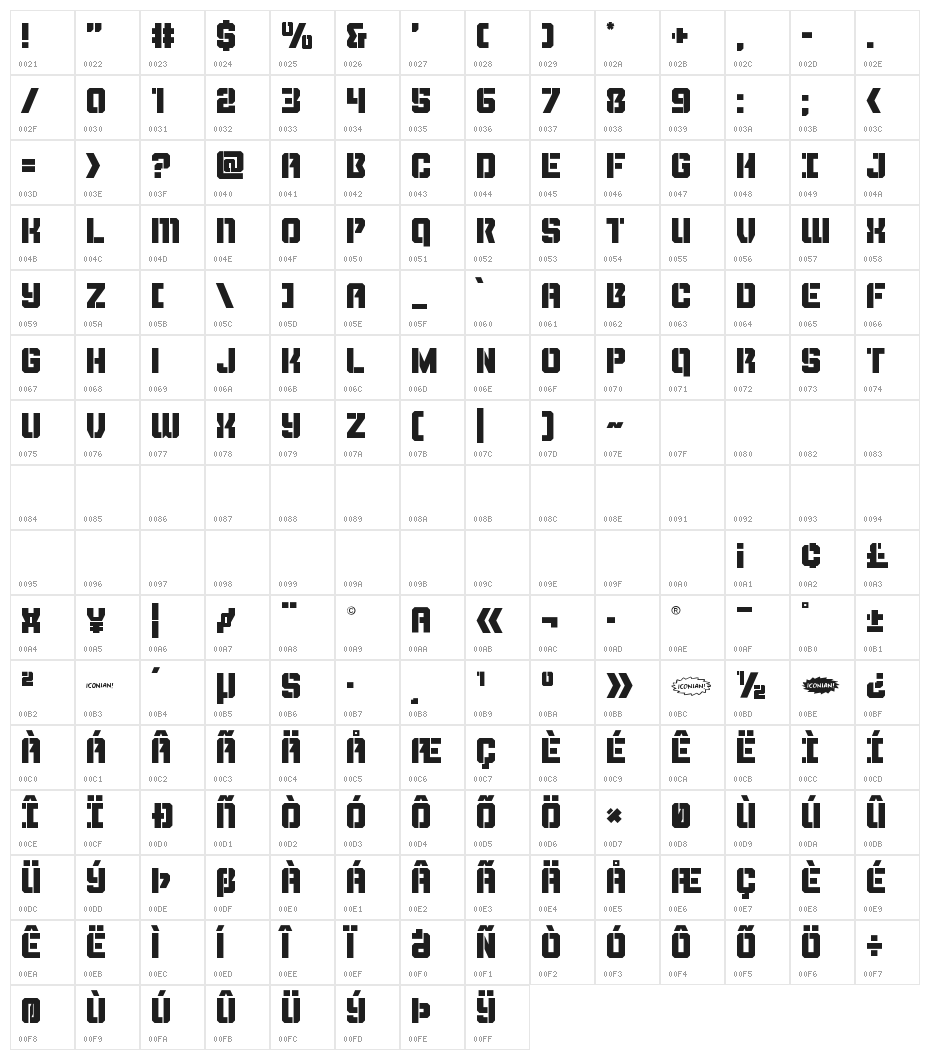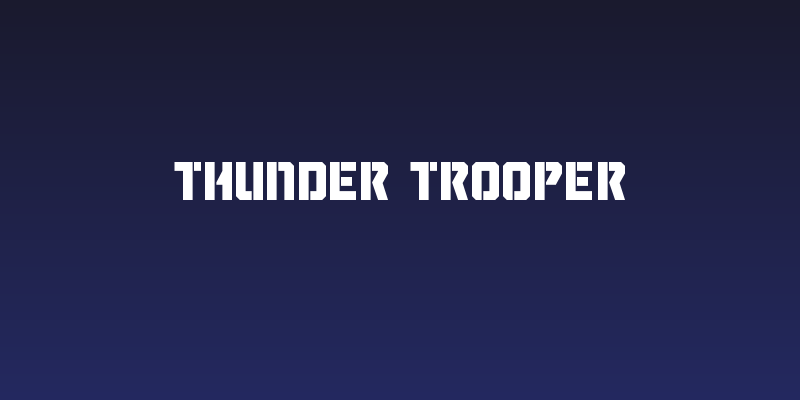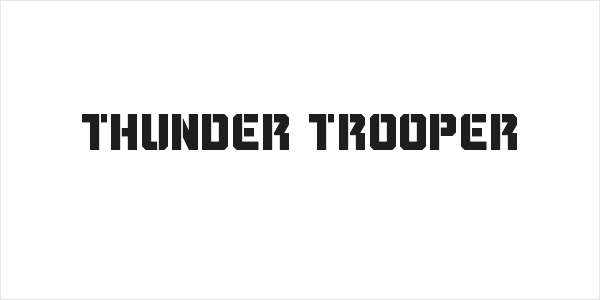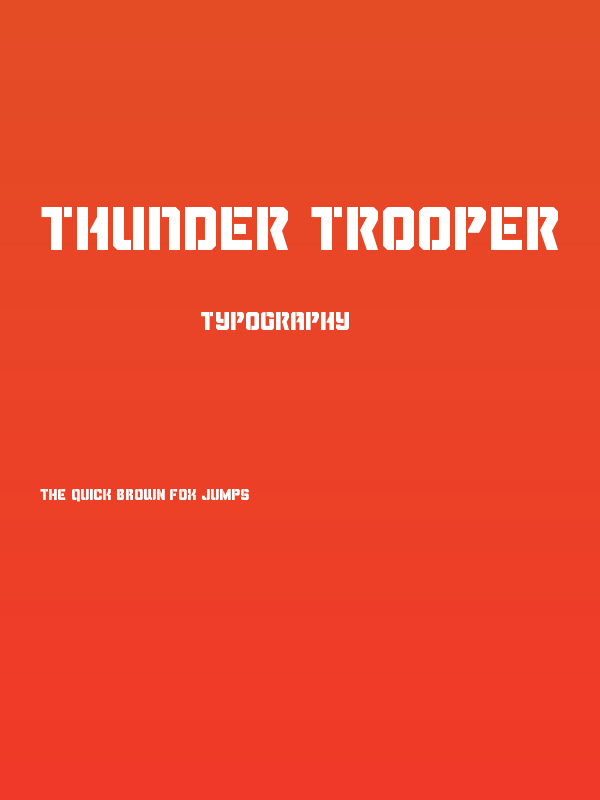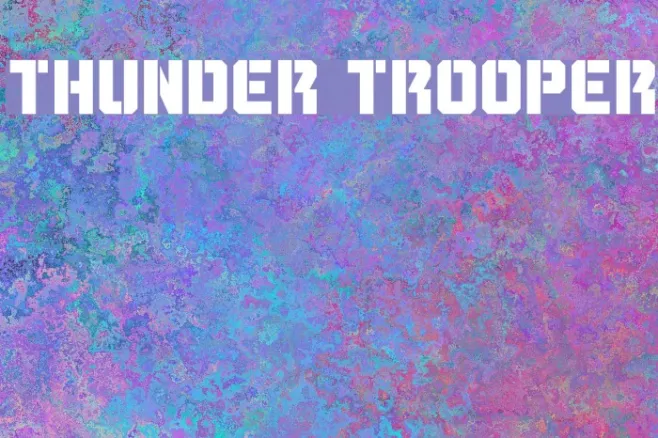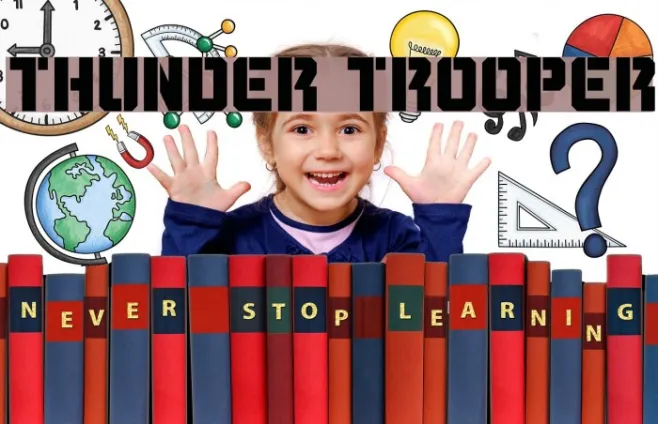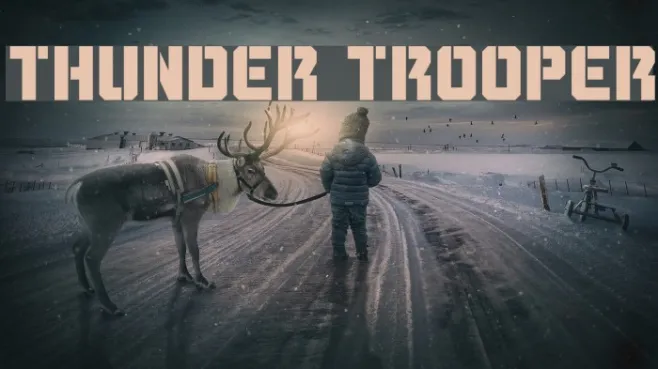
Thunder Trooper Font
Thunder Trooper Description
This font features a bold, geometric design with a strong, futuristic aesthetic. The characters are constructed with sharp angles and straight lines, giving them a blocky, industrial look. The uppercase letters are particularly striking, with a uniform height and width that create a cohesive appearance. The numbers and special characters maintain this bold style, ensuring consistency across all glyphs. This font's design is reminiscent of digital or sci-fi themes, making it ideal for projects that require a modern and edgy feel.
| Proposed Projects | Ideal for sci-fi themed designs, video game titles, technology branding, and futuristic posters. |